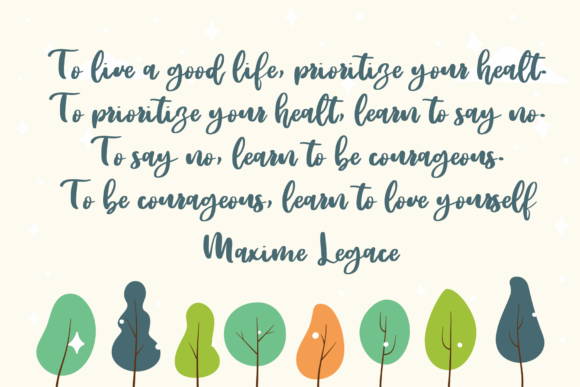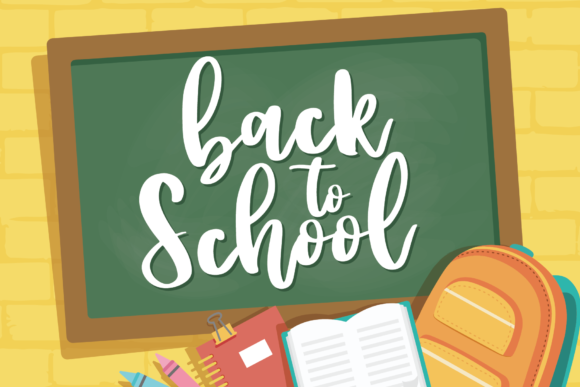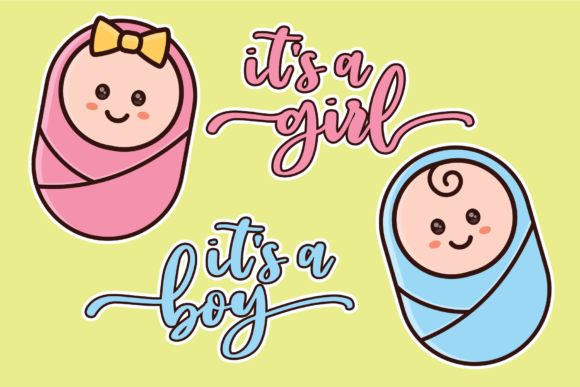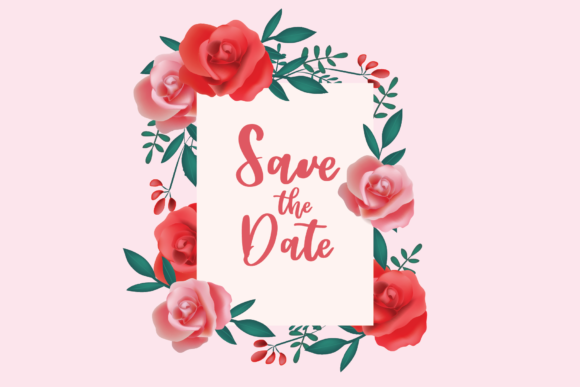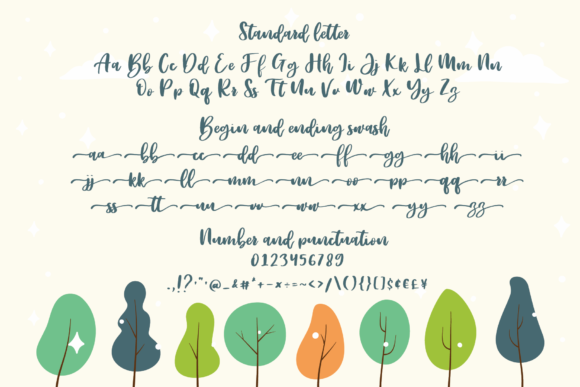
Discover the Elegance of Colorado Font: Elevate Your Designs with Style
Are you on the hunt for a font that exudes elegance, sophistication, and a touch of modern flair? Look no further than the Colorado Font, a stunning handwritten typeface that is sure to take your designs to the next level. In this article, we’ll dive into the features, benefits, and uses of this beautiful font, and explore how it can help you create stunning visual content that captivates your audience.
What is Colorado Font?
Colorado Font is an elegant and flowing handwritten font that boasts a unique blend of classic calligraphic influences and contemporary style. With its varying baseline, smooth lines, gorgeous glyphs, and stunning alternates, this font is perfect for designers and crafters looking to add a touch of sophistication to their projects.
Key Features of Colorado Font
- Varying Baseline: The font features a varying baseline, which gives it a natural, handwritten feel that is both elegant and approachable.
- Smooth Lines: The smooth lines of Colorado Font create a sense of fluidity and movement, making it perfect for designs that require a sense of dynamism and energy.
- Gorgeous Glyphs: The font comes with a range of gorgeous glyphs, including stunning alternates that allow you to add an extra layer of creativity to your designs.
Benefits of Using Colorado Font
So, why should you choose Colorado Font for your next design project? Here are just a few benefits of using this stunning font:
- Elegance and Sophistication: Colorado Font exudes elegance and sophistication, making it perfect for designs that require a high level of professionalism and style.
- Versatility: The font is versatile and can be used for a wide range of design projects, from branding and packaging to wedding invitations and digital marketing materials.
Who Can Benefit from Colorado Font?
Colorado Font is perfect for a wide range of designers and crafters, including:
- Graphic Designers: Graphic designers can use Colorado Font to create stunning visual content for their clients, from logos and branding materials to social media graphics and digital marketing materials.
- Wedding Designers: Wedding designers can use Colorado Font to create beautiful wedding invitations, stationery, and other decorative materials that exude elegance and sophistication.
- Crafters: Crafters can use Colorado Font to add a touch of elegance and style to their DIY projects, from handmade cards and gift tags to scrapbooking and journaling.
How to Use Colorado Font
- Experiment with Different Glyphs: Don’t be afraid to experiment with different glyphs and swashes to create unique and eye-catching designs.
- Pair with Other Fonts: Colorado Font pairs well with other fonts, so don’t be afraid to try pairing it with different typefaces to create interesting and dynamic designs.
- Use for Headings and Titles: Colorado Font is perfect for headings and titles, so try using it to add a touch of elegance and sophistication to your designs.
| Font Name | Colorado Font |
| Author | alphArt |
In conclusion, Colorado Font is a stunning handwritten font that is sure to elevate your designs to the next level. With its elegant and flowing lines, gorgeous glyphs, and stunning alternates, this font is perfect for designers and crafters looking to add a touch of sophistication and style to their projects. Whether you’re a graphic designer, wedding designer, or crafter, Colorado Font is a must-have font that is sure to inspire your creativity and take your designs to new heights.